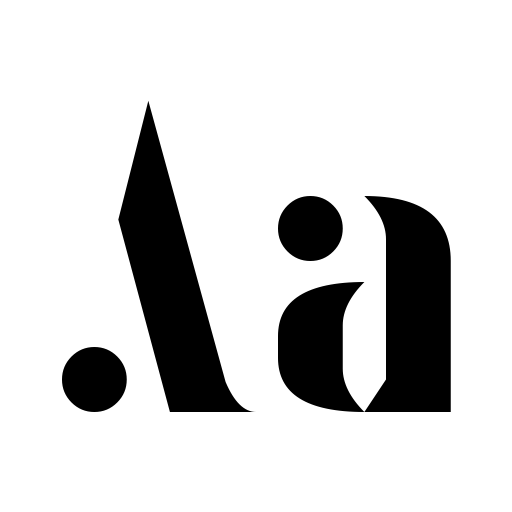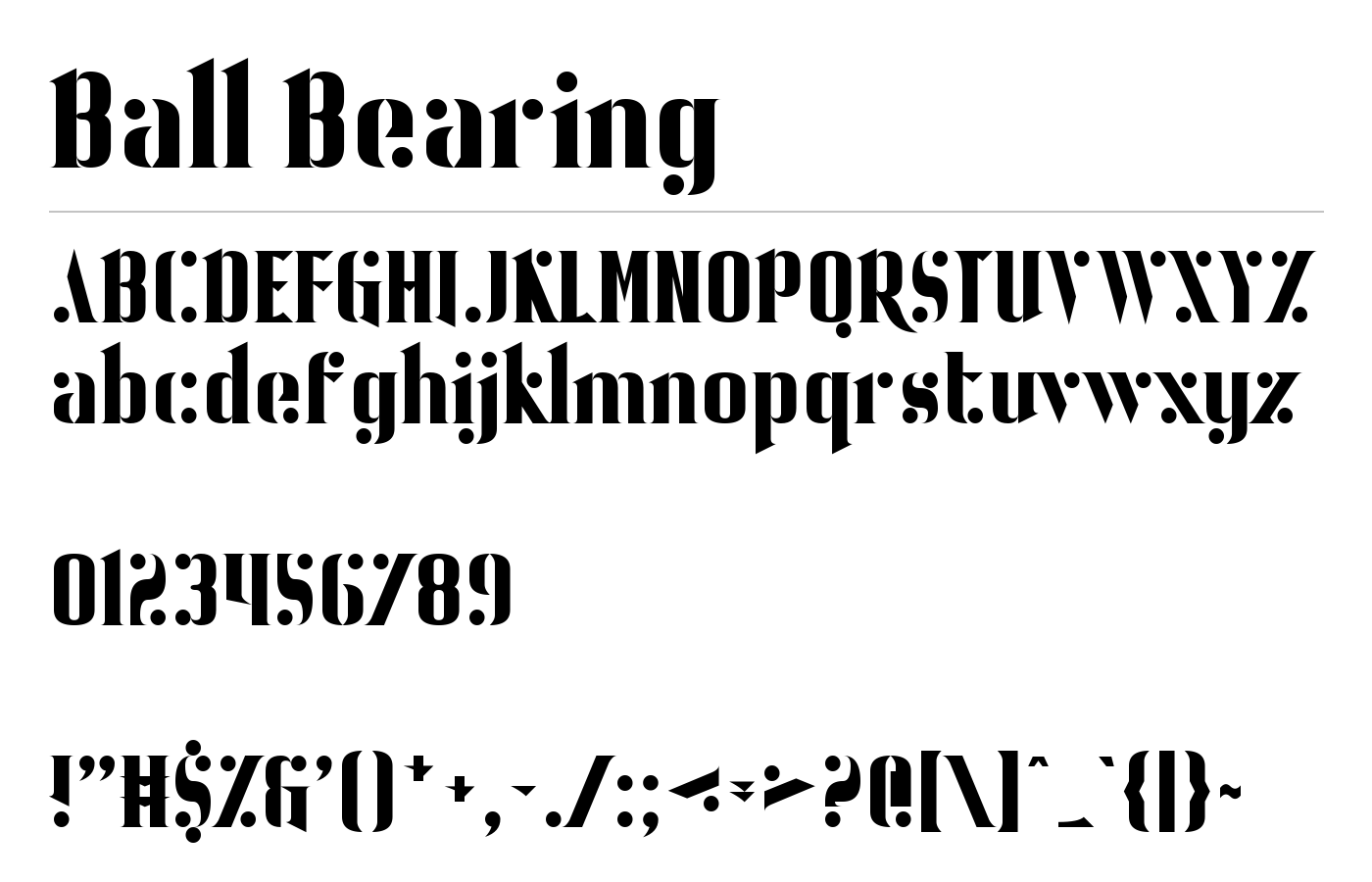
Ball Bearing is a bold, condensed serif font with a striking modern-mechanical feel, characterized by its high contrast strokes and unique circular cut-out details reminiscent of ball bearings. Its sharp edges and geometric shapes give it a strong, industrial personality, making it an excellent choice for impactful headlines, logos, and branding projects that seek to convey innovation and strength. This font works well where standout, attention-grabbing typography is needed, especially in fashion, technology, or editorial design.
Ball Bearing Font